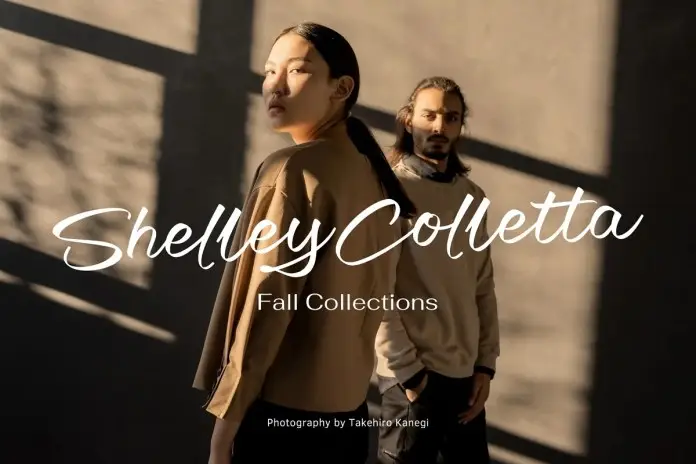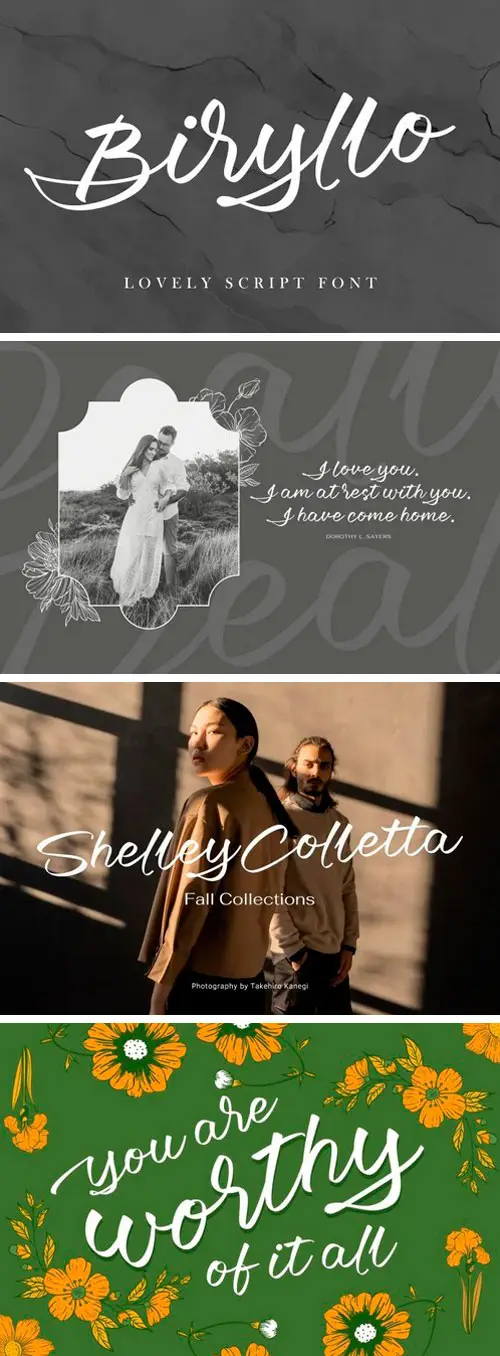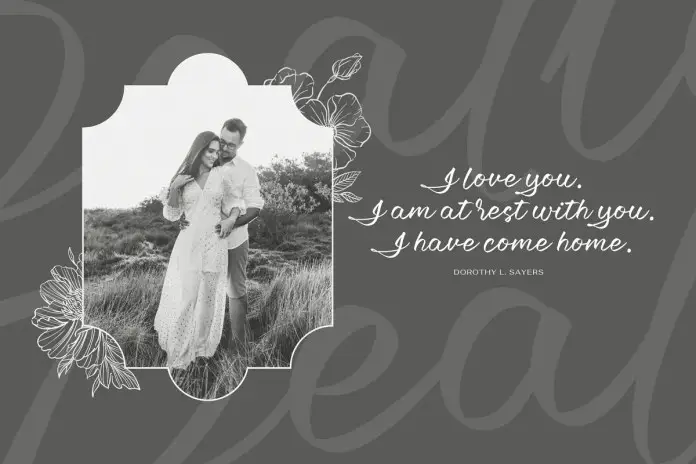
Biryllo Script Font
The Biryllo Script Font is a beautifully crafted typeface that combines elegance with a modern touch. This font is perfect for a variety of applications, from branding and logos to web design and print materials.
• Utilize this font for creating eye-catching logos and branding materials.
• Incorporate it into website designs to add a personal touch.
• Perfect for invitations, greeting cards, and other print projects.